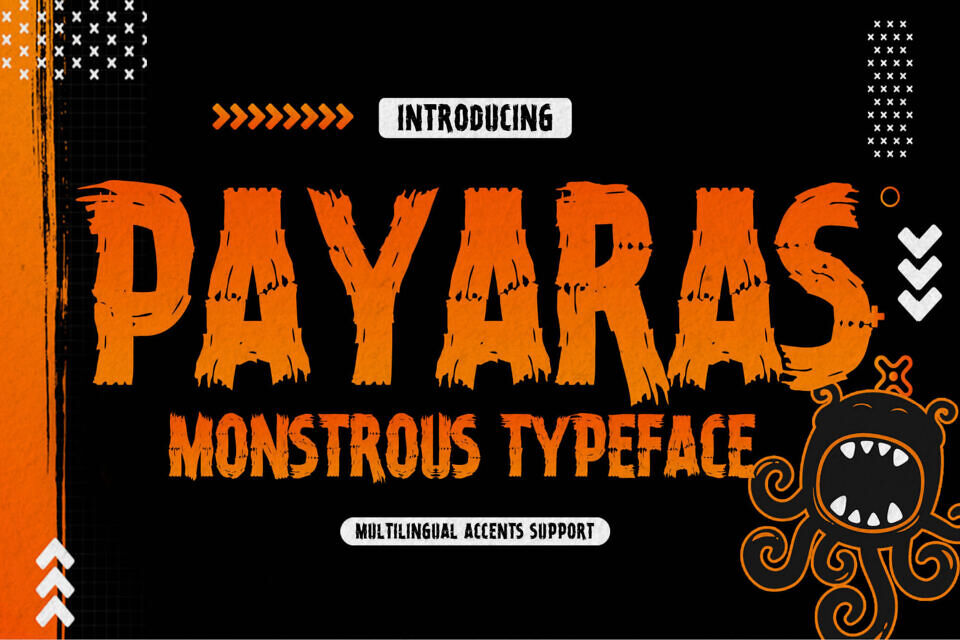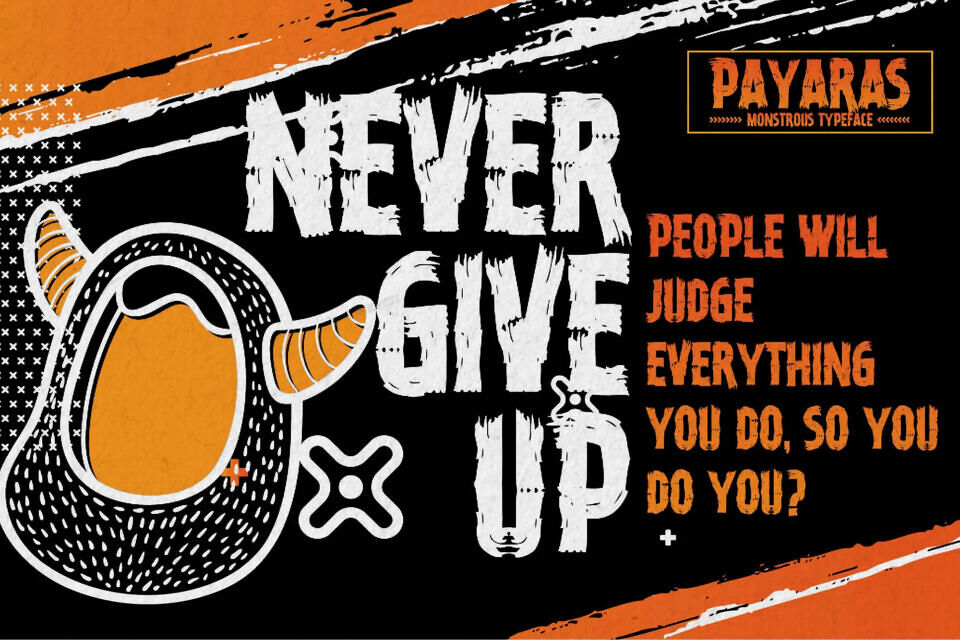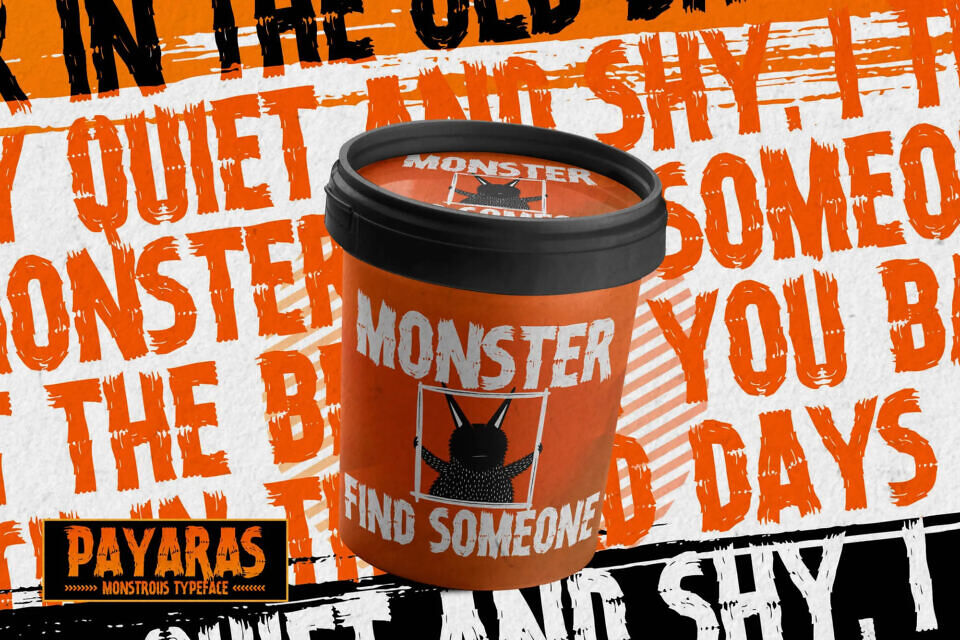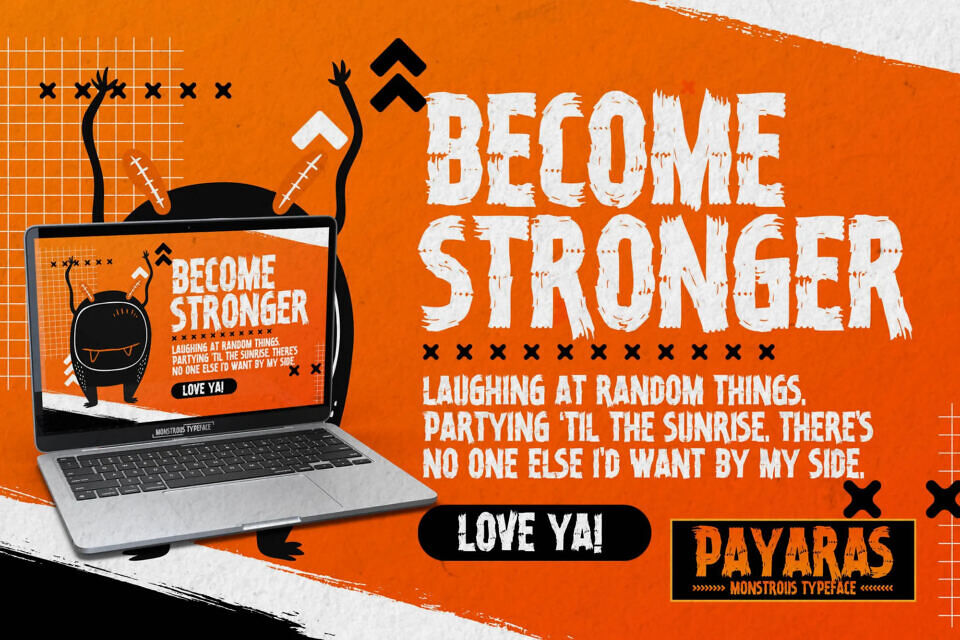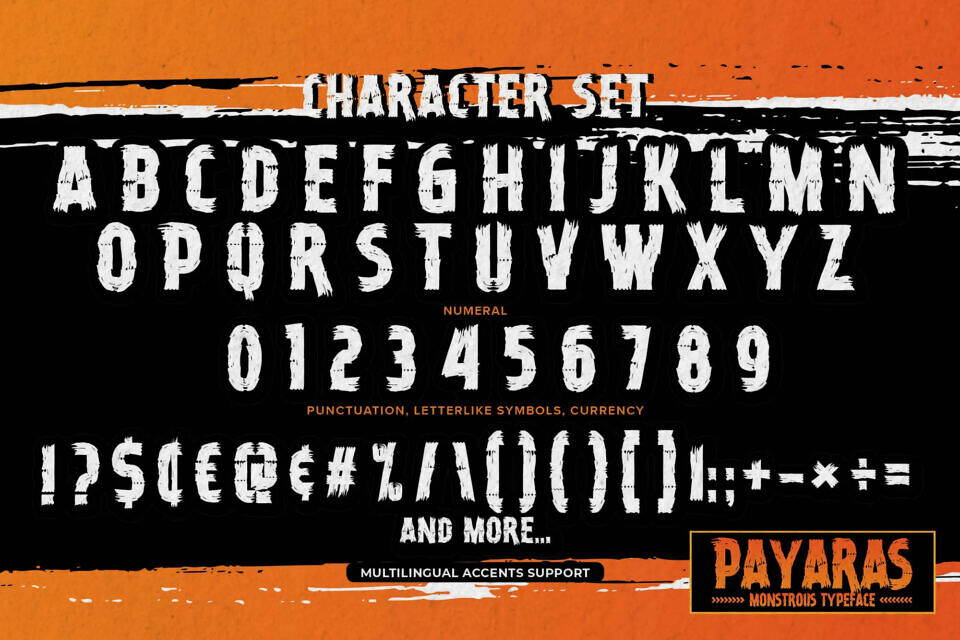
Add a terrifying touch to your designs with Payaras, a bold, monstrous font by Almarkhatype. Perfect for posters, children’s books, comics, and projects that require a spooky atmosphere.
This intense typeface brings a fierce and powerful energy, ideal for horror-themed, gaming, and edgy creative ventures, unleashing a beastly personality into your work.